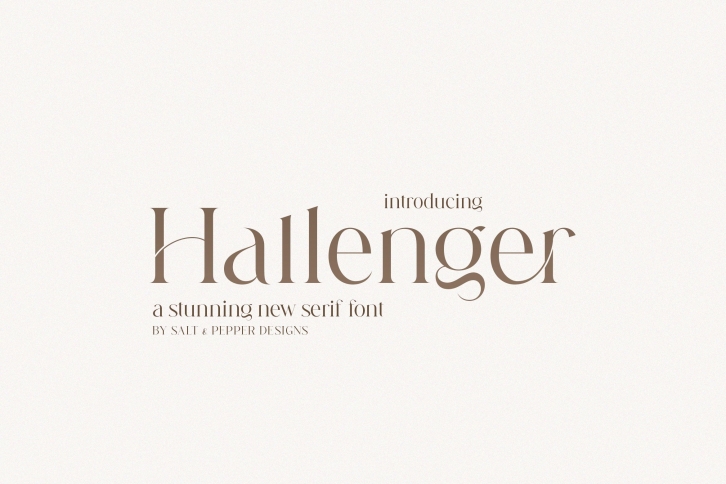
Hallenger Duo is a gorgeous font that was realeased on June 1, 2021. The font can be used in many style contexts and design environments. Perfect for invitations, magazines, websites, logos, and more! It was designed by Salt and Pepper Designs and the file size is 18.80 MB. Thanks for checking out this font!